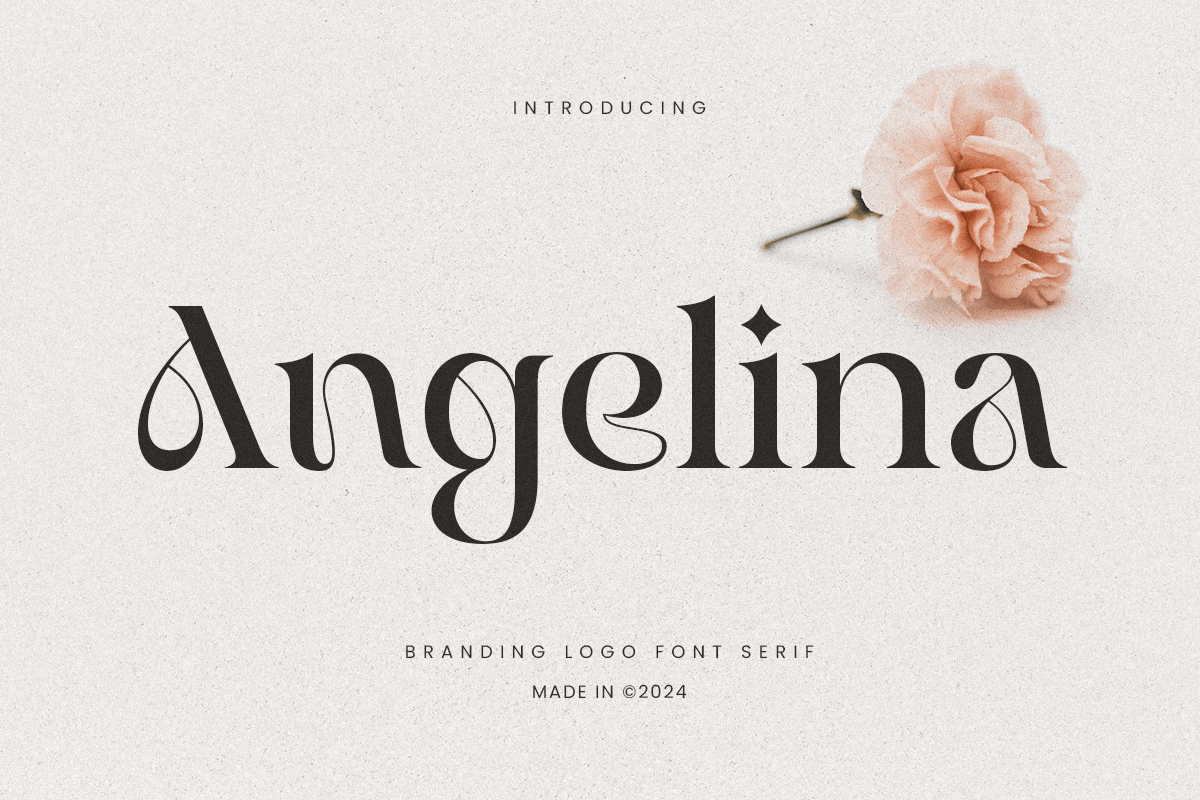
Angelina
-Branding Logo FontAngelina is a beautifully refined branding logo font that exudes elegance and sophistication. With its delicate curves and classic forms, Angelina is perfect for luxury brands, fashion labels, and creative businesses seeking a timeless and graceful logo. Its stylish design ensures a striking visual presence that resonates with modern branding needs.
Designed with both functionality and aesthetics in mind, Angelina is versatile enough for logos, websites, business cards, and packaging. The font’s smooth, flowing lines add a sense of elegance to any project, helping brands make a lasting, memorable impression.
Angelina comes with alternative characters and supports multiple languages, making it ideal for designers looking to create distinctive and professional brand identities. Its timeless charm and luxurious feel make it a must-have for high-end projects.
Angelina Branding Logo Font Features:
Elegant Ligature & Alternative Characters Ready
Unique Punctuation, Number, and Symbol